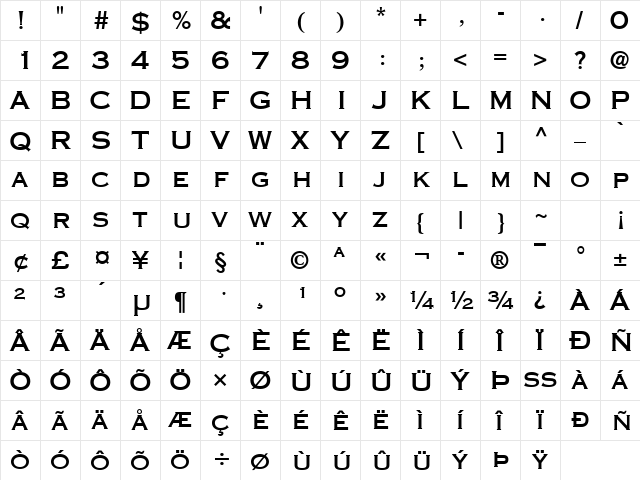
Ironclad Bold Font Preview
Ironclad Bold
Design Context for Ironclad Typeface
Ironclad takes a measured approach to typography — its balanced proportions and neutral character make it a reliable workhorse for both digital and print work. Its bold stroke weight gives it real presence on the page.